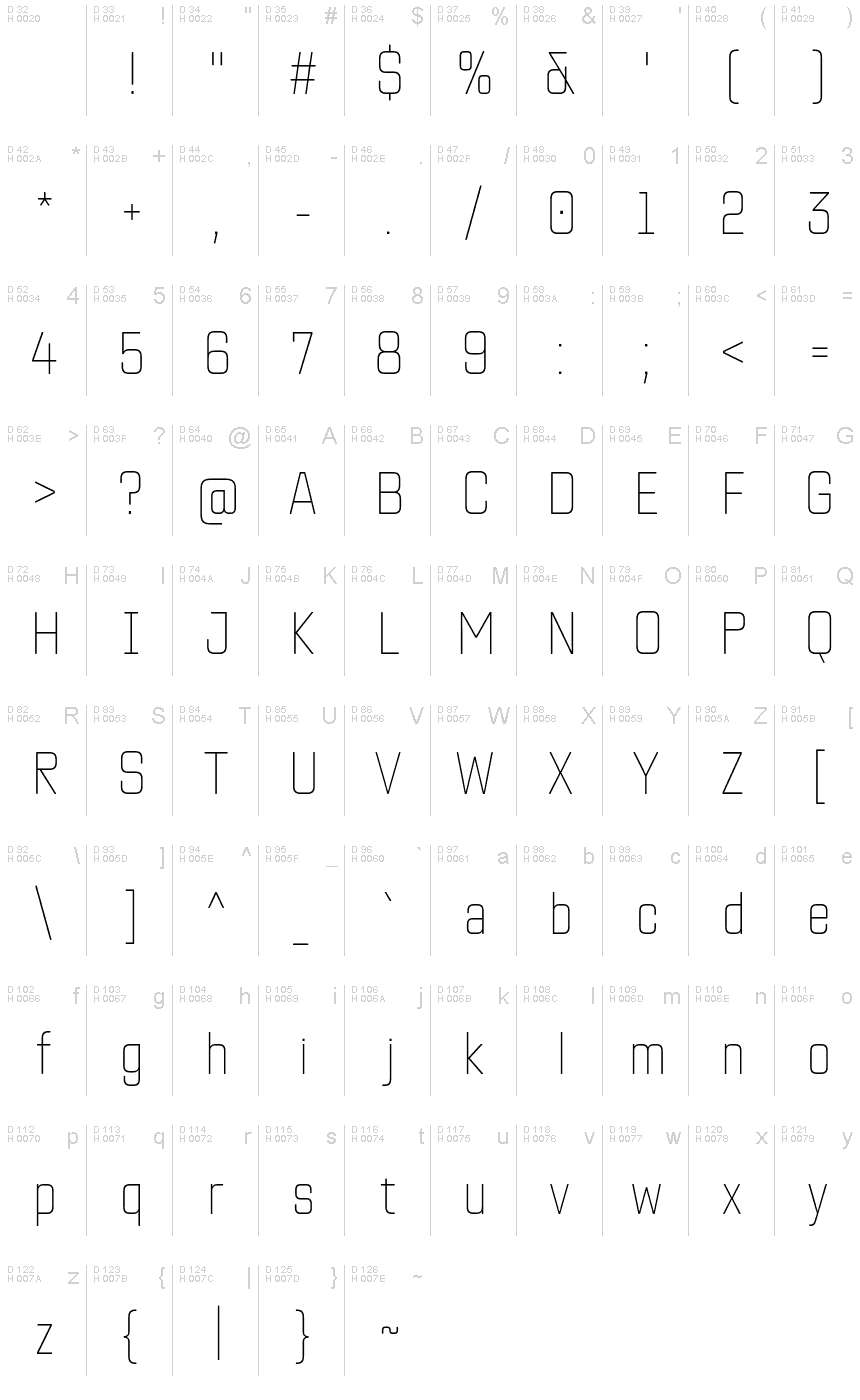
TT Lakes Neue Trl Cnd Th
TT Lakes Neue Cnd Th is a fantastic sans serif font designed by the talented team at TypeType Foundry. Its extra-light weight and condensed width make it perfect for projects that require a modern and sleek look, such as minimalist logos, website headings, and product packaging. The sharp edges and clean lines of this typeface give it an air of sophistication that would work well in fashion or beauty branding. With its versatile style, TT Lakes Neue Cnd Th is also suitable for use in editorial design or advertising campaigns where attention-grabbing headlines are essential.